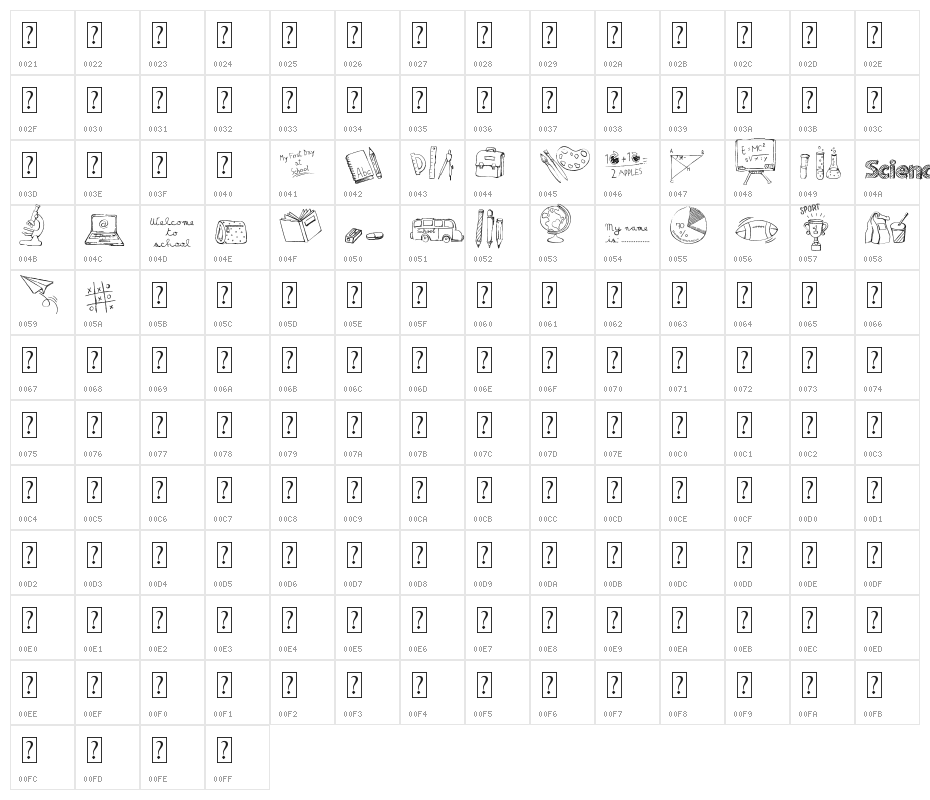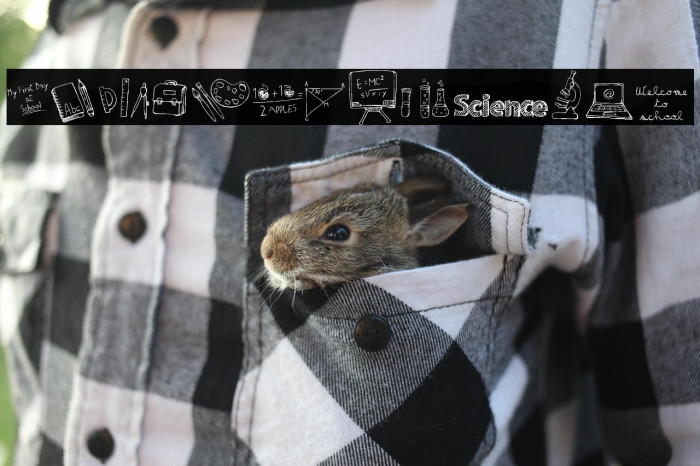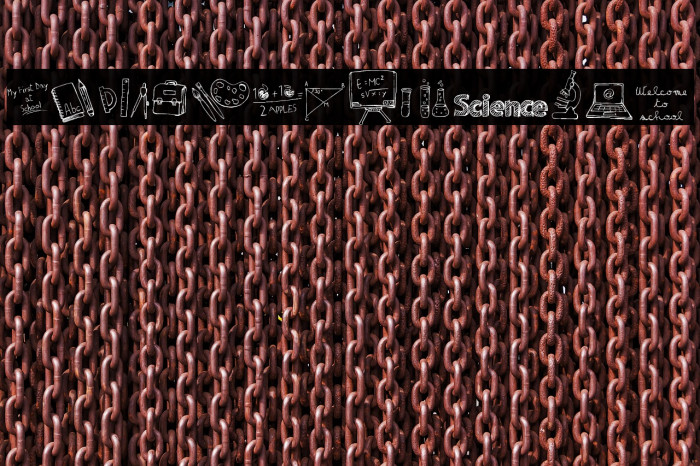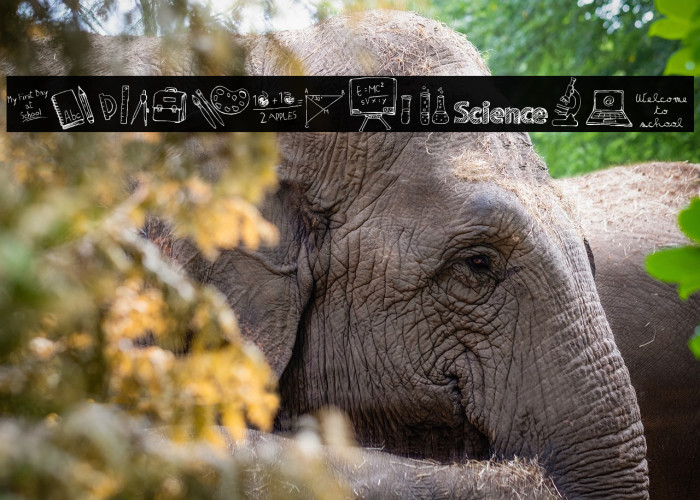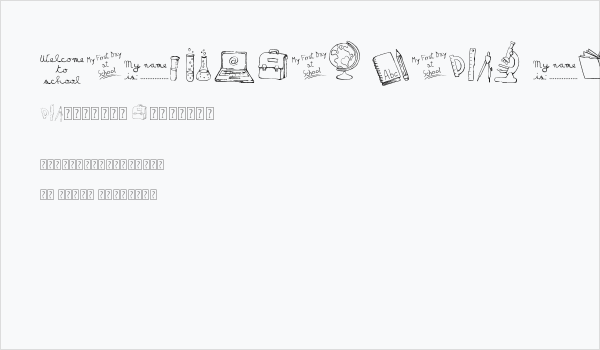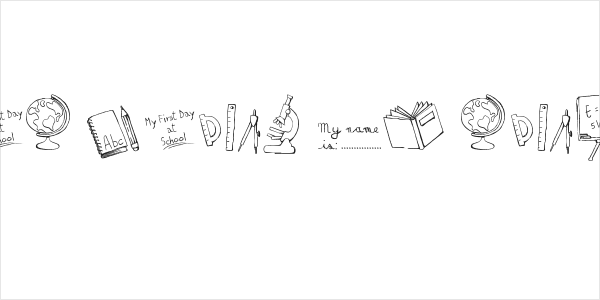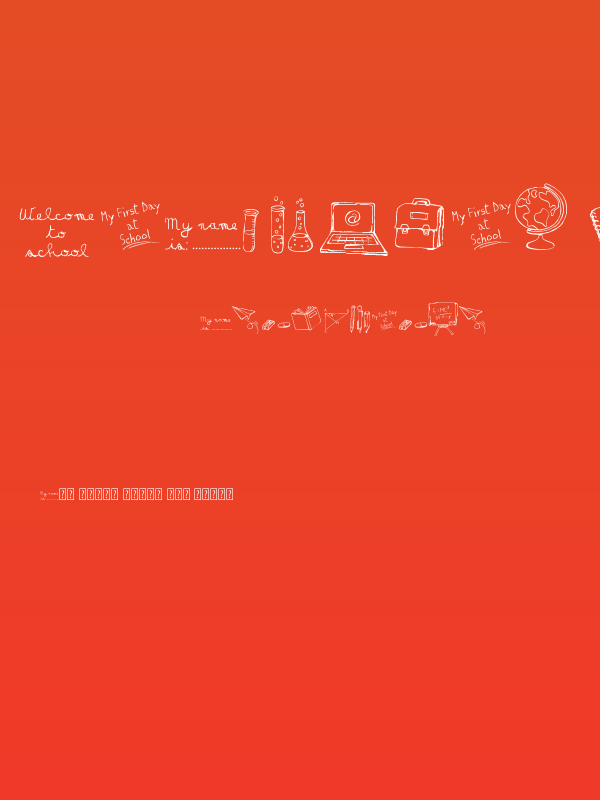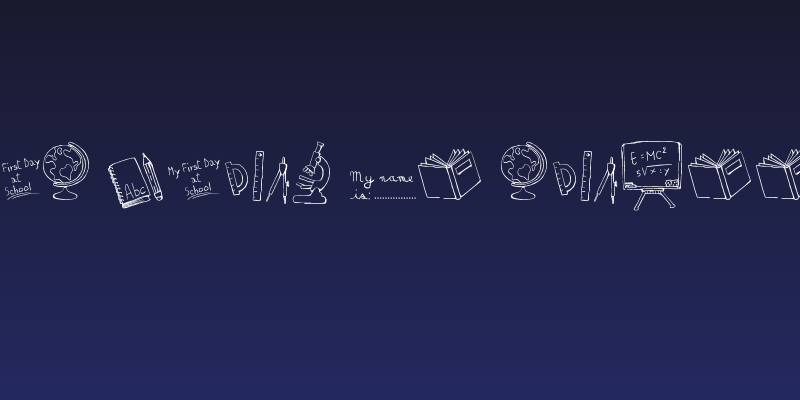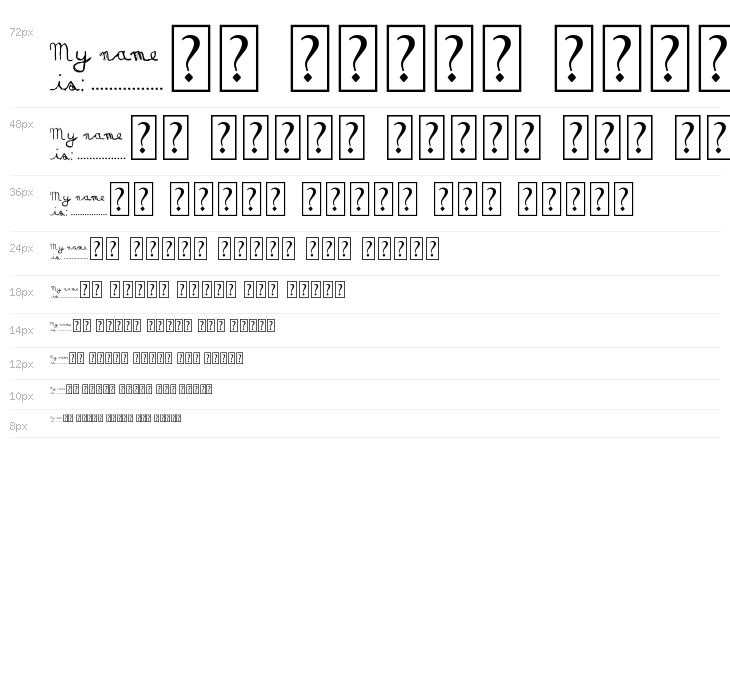
MATILDAS BACK TO SCHOOL_Demo Font
MATILDAS BACK TO SCHOOL_Demo Description
This font is a playful and whimsical handwritten style, reminiscent of doodles and sketches found in a student's notebook. It features a variety of school-themed illustrations, such as pencils, books, and science equipment, integrated into the design. The characters are irregular and freeform, giving a casual and informal appearance. The font captures the essence of a fun and creative school environment, making it ideal for educational materials or projects aimed at children. Its unique style adds a personal touch, making it stand out in any design.
| Overall Style | Playful and Whimsical |
| Use Case | Headlines, Educational Materials, Creative Projects |
| Proposed Projects | Ideal for educational materials, children's books, school event posters, and creative projects aimed at young audiences. |